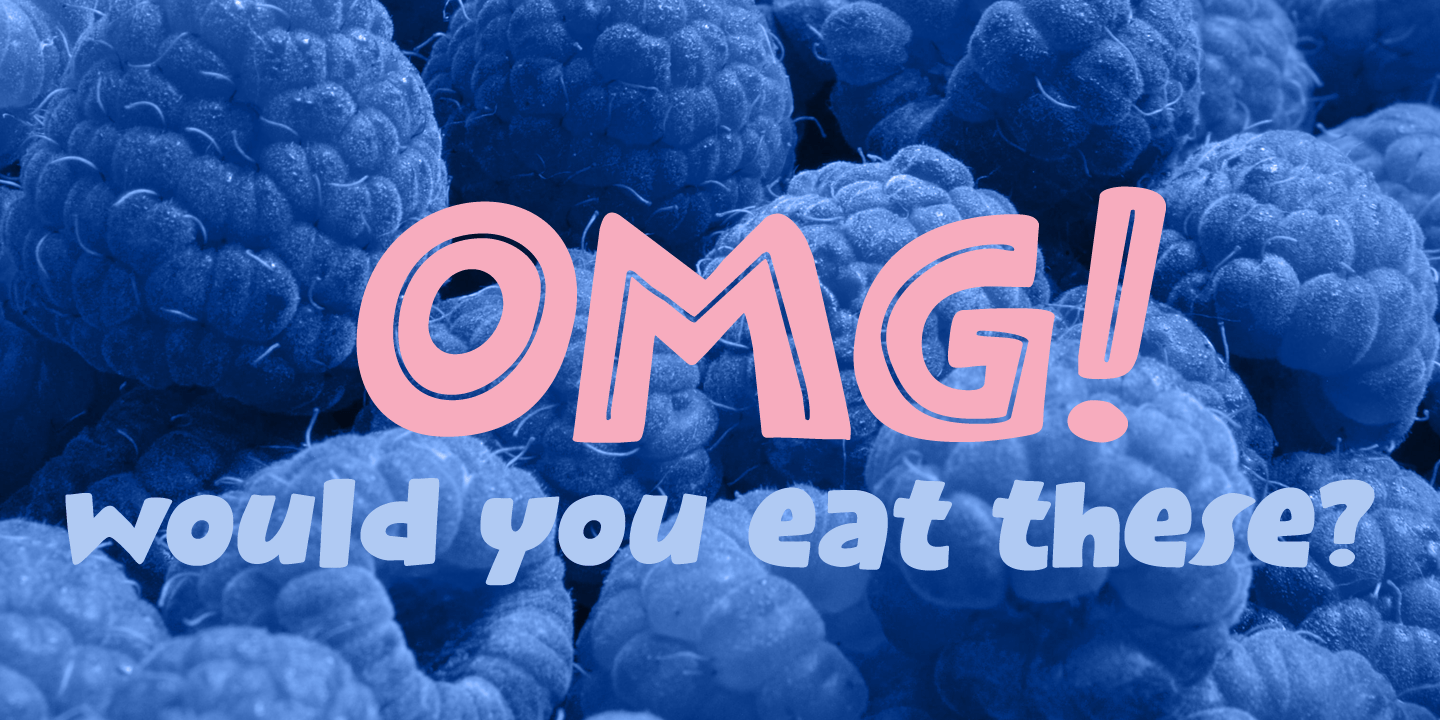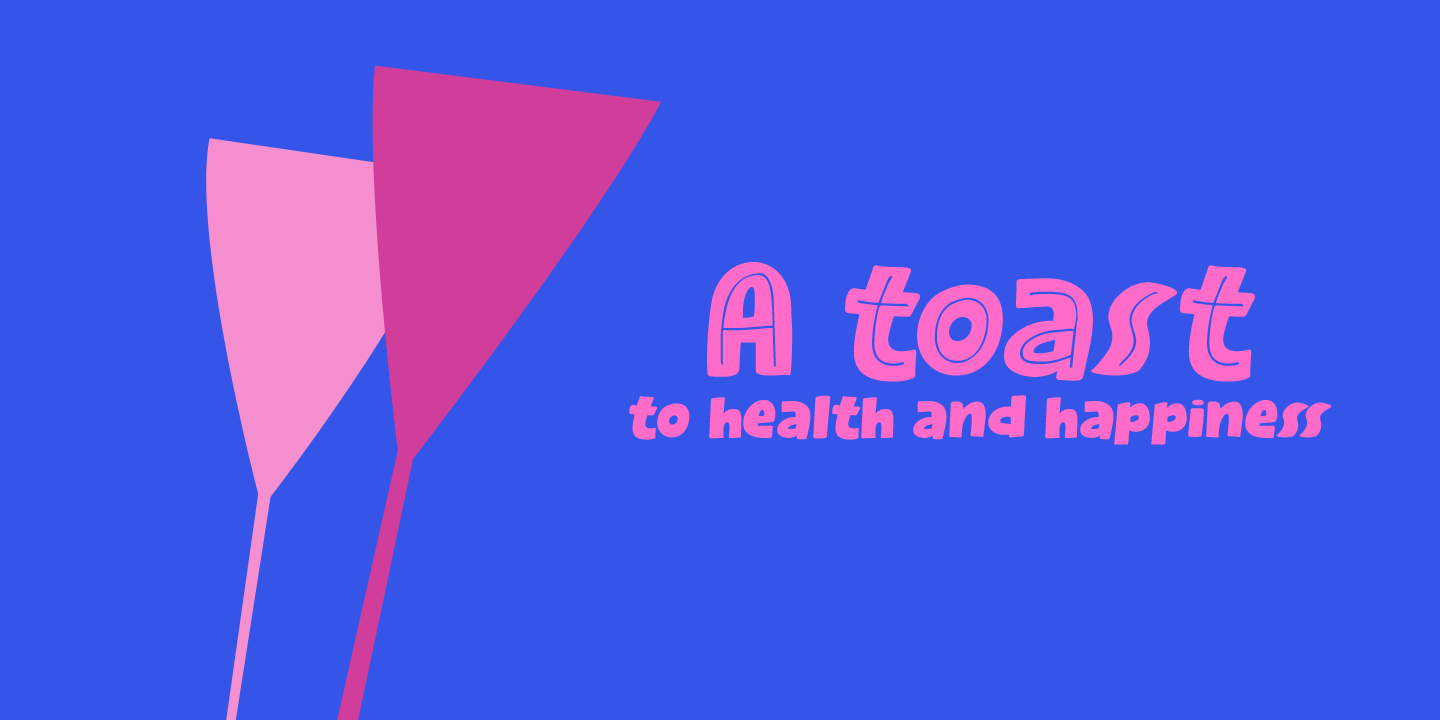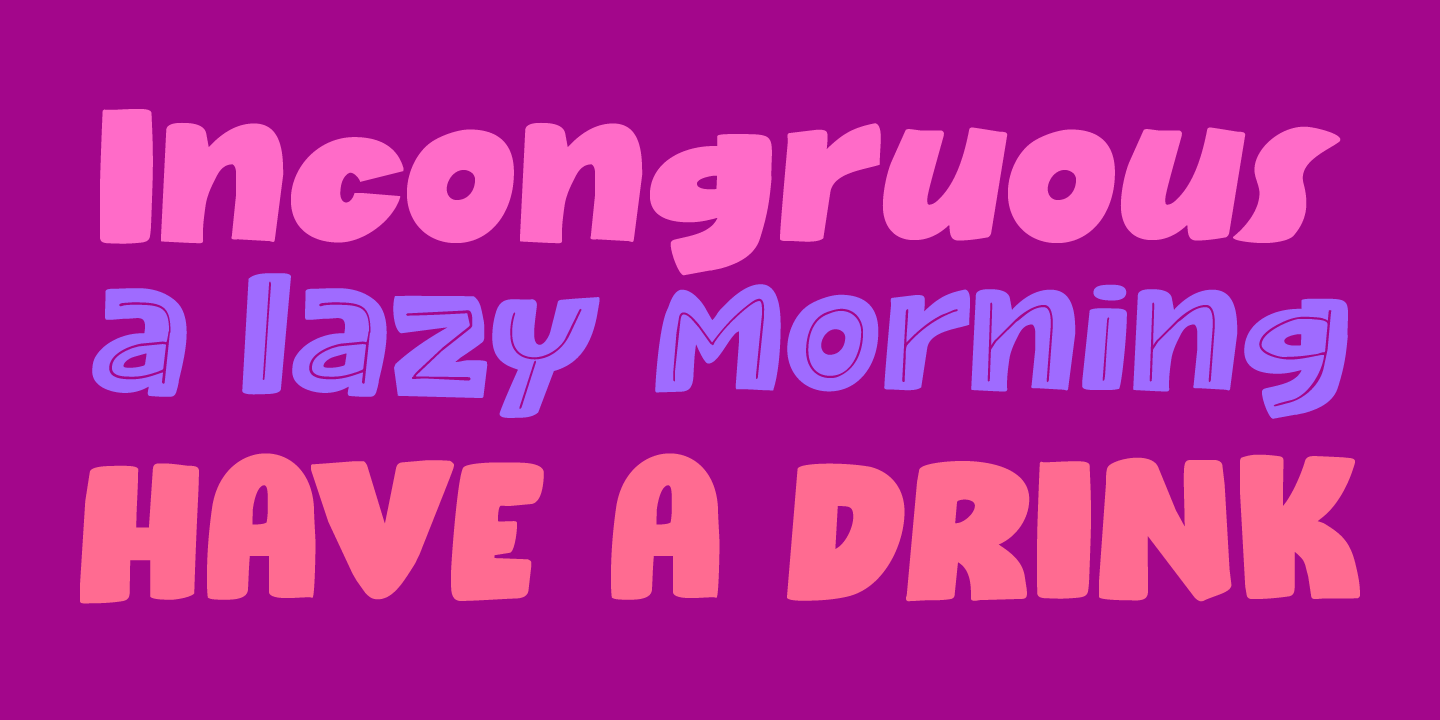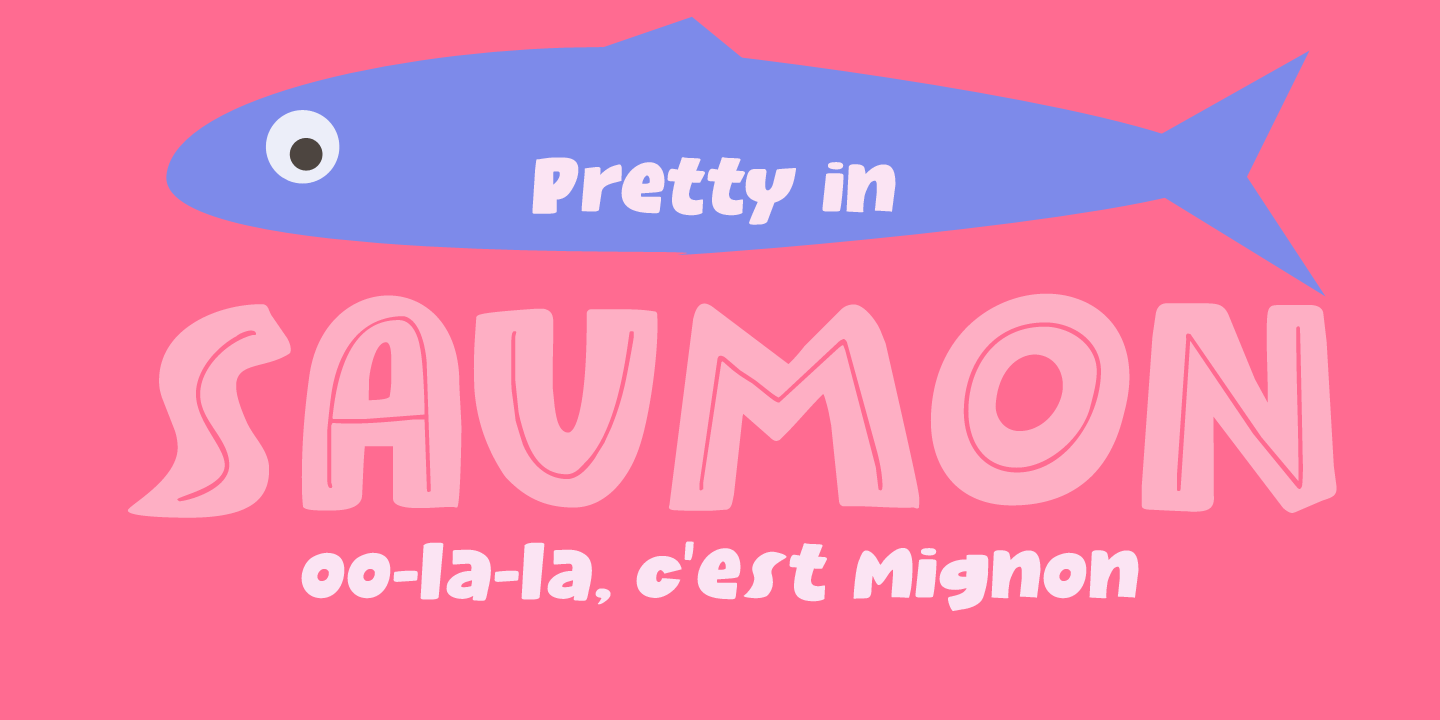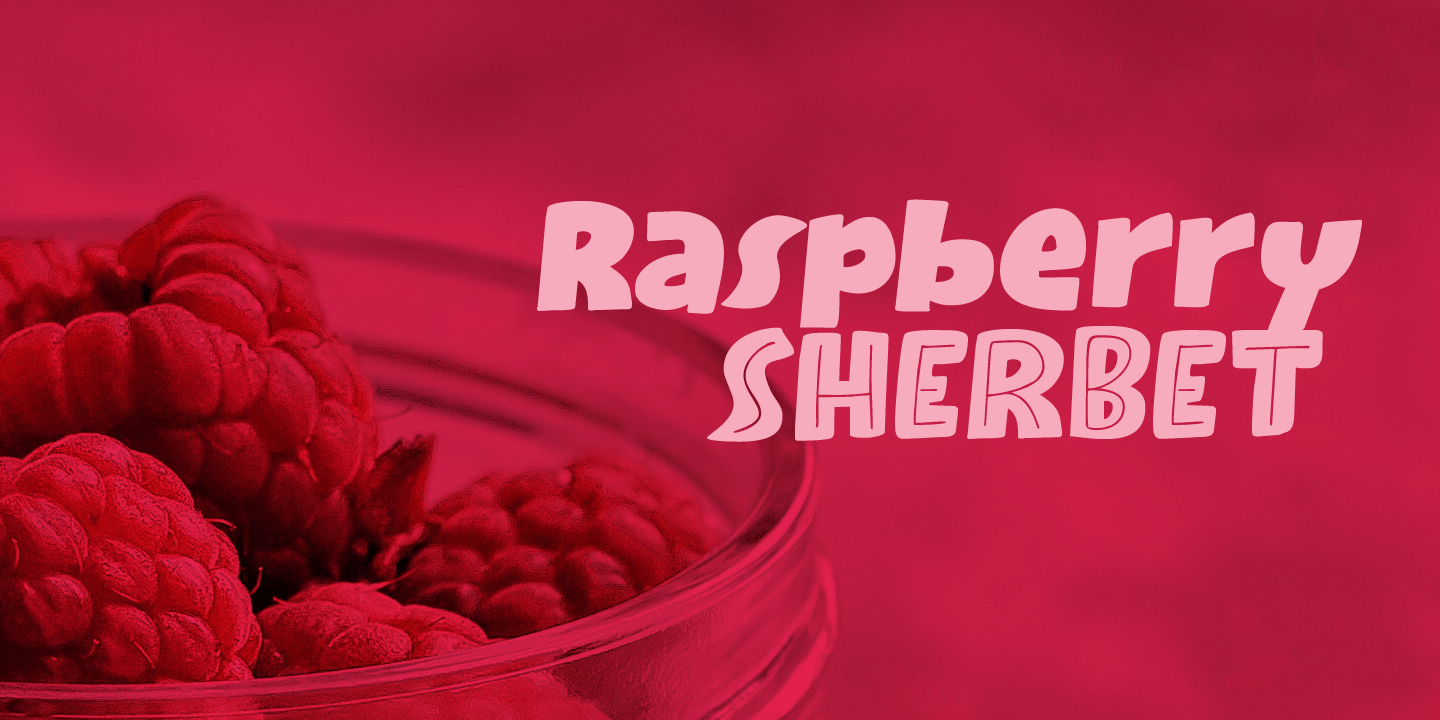
Raspberry Sherbet
About Raspberry Sherbet
I have actually never had a sherbet. When I made this font family, I wish I had one, as it was a whopping 38 degrees (Celsius, not Fahrenheit?) outside. Raspberry Sherbet is a cute little font family, consisting of a rounded fat kids font and an inline…